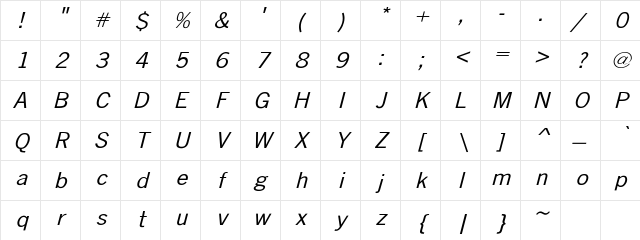
Complete NewsGothicExt 2 Regular glyph index. Displaying only characters natively supported by NewsGothicExt 2 Regular font.
NewsGothicExt 2 takes a clean, functional approach - its unadorned letterforms prioritise legibility and work reliably across screen and print environments.
Font Pairing: Works well alongside a characterful serif or display font that can carry the expressive load while NewsGothicExt 2 handles the functional copy.
Pro Tip: Use NewsGothicExt 2 for UI labels, navigation, and short-form body copy where clean legibility is the priority.